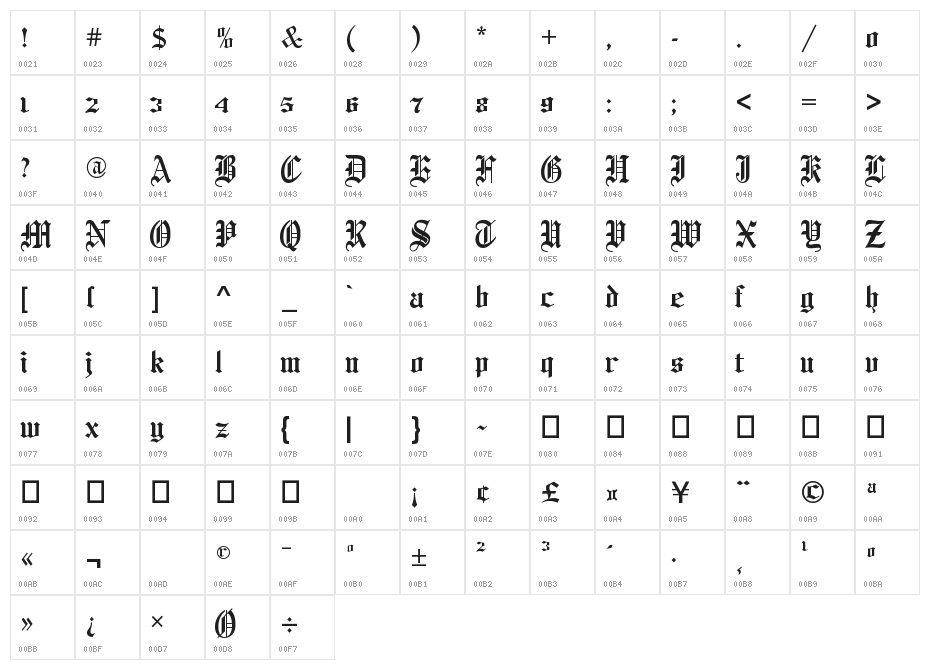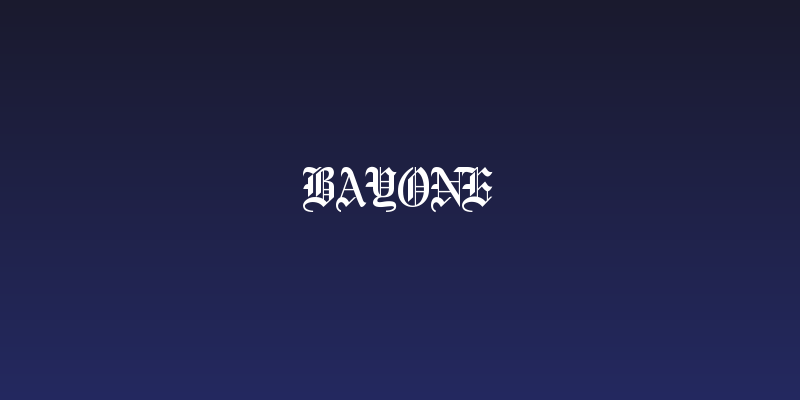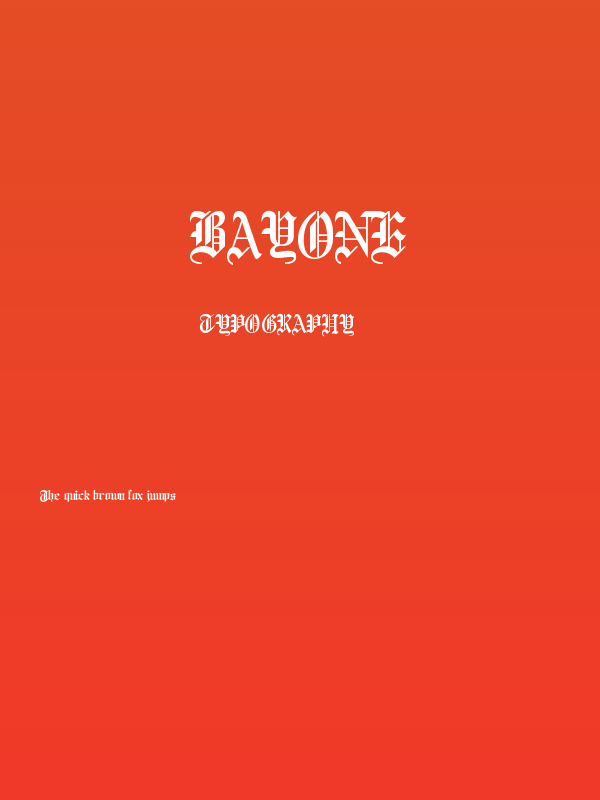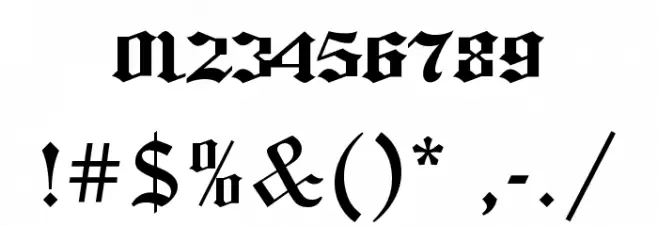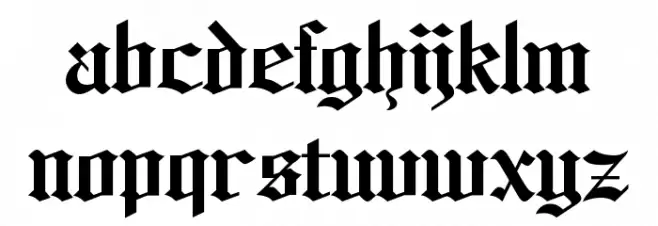
Bayone Font
Bayone Description
This font exhibits a traditional blackletter style, characterized by its intricate and ornate letterforms. The uppercase letters are particularly elaborate, featuring sharp angles and decorative serifs that give a sense of historical elegance. The lowercase letters maintain a consistent style, with a slightly more subdued ornamentation, ensuring readability while preserving the overall aesthetic. The numerals and special characters are designed to match the ornate style of the alphabet, making them suitable for decorative purposes. This font is reminiscent of medieval manuscripts and Gothic architecture, offering a sense of antiquity and formality.
| Use Case | Headlines, Logos, Decorative text |
| Proposed Projects | Ideal for projects requiring a historical or medieval theme, such as book covers, posters, or themed event invitations. |